Modern hand lettering fonts are redefining the art of typography, offering fresh and elegant options for invitation and branding. With a variety of styles, from minimalistic to calligraphic, they can cater to make a lasting impression.
A Peek into Our Modern Hand Lettering Fonts
These fonts combine the charm of handcrafted styles with contemporary trends, creating a look that’s both stylish and personal. So, without further ado, let’s take a peek!
1. Handitype
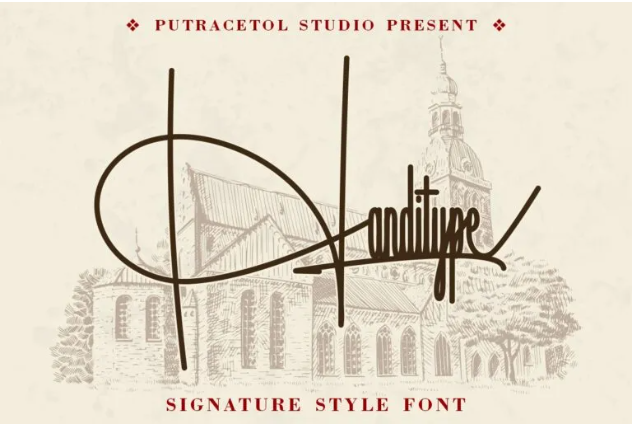
Handitype is solely made to charm readers. This font mimics a commonly understood signature by combining exaggerated capital letters with condensed lowercase.
2. Rhonde
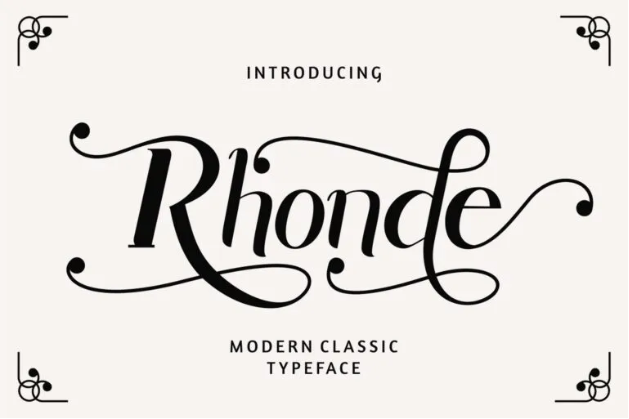
A modern and romantic typeface like Rhonde can incite lovey-dovey vibes. It’s not even the swashes, the uppercase is already ornamented like that.
3. Marie Clarie
A monoline font like Marie Clarie could be an option when looking for a more balanced typeface. It has a script font style with extravagant loops.
4. Qonitya
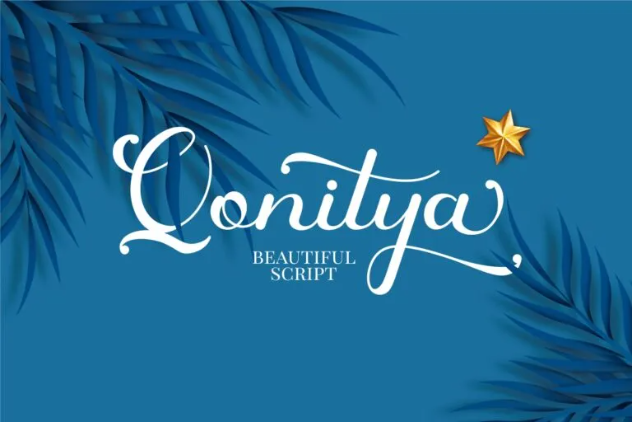
For beautiful hand lettering fonts, Qonitya beautiful script is a no-brainer. The font has wholesome, almost natural typefaces, just like a person wrote it.
5. Mayla
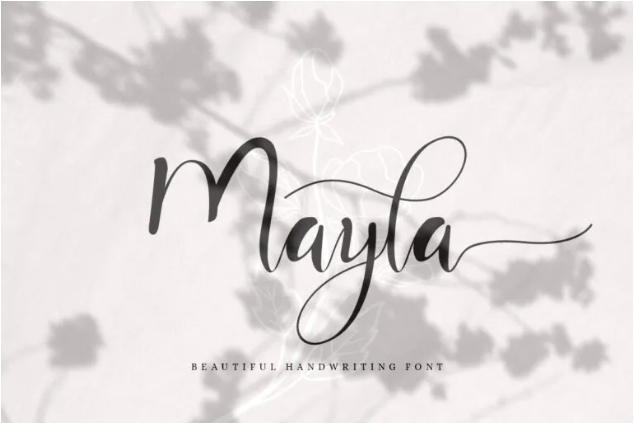
Mayla offers consistent thick and thin strokes. This handwritten script font can captivate readers with its pure appearance.
6. Yuanita
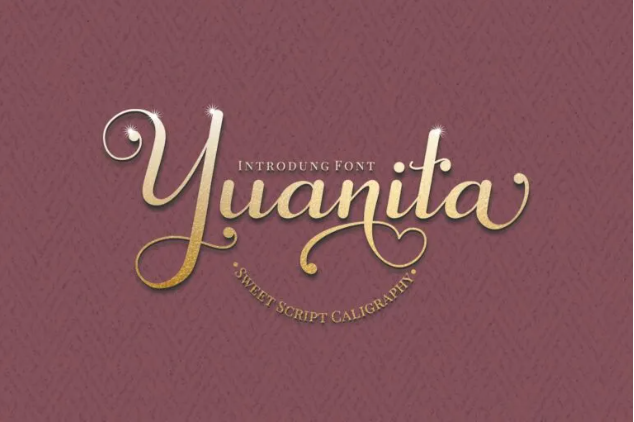
Yuanita hand lettering calligraphy fonts add natural aesthetics with its inconsistencies. The font has unconventional shapes and is slightly uneven at the bottom.
.7. The Doctor
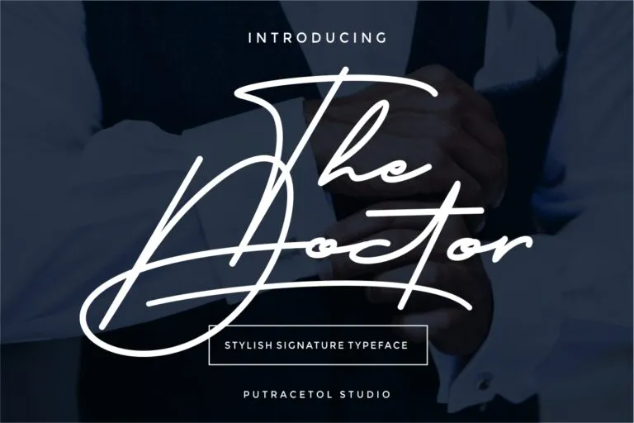
When aiming for authority in your text, The Doctor is the one. It is a signature script with more masculine and manly vibes.
8. Clarinta
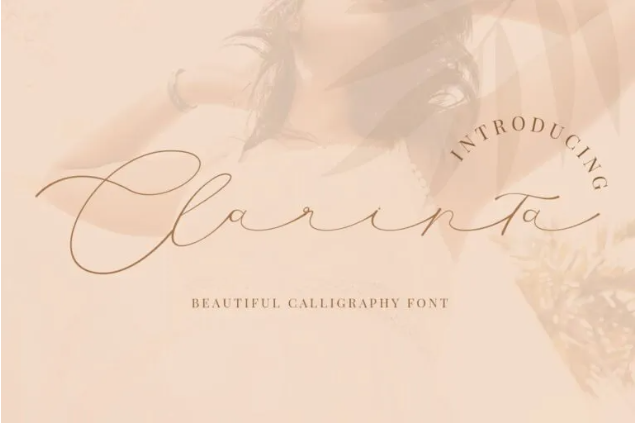
When asserting elegance, Clarinta does not shy away. With its cute and rare typeface, the font serves as the pinnacle of calligraphic font.
9. The Bad Signature
The Bad Signature suggests that it was made with natural handwritten feels. Unlike other signature fonts that focus on flow, this one focuses on readability.
10. Paperlight Script
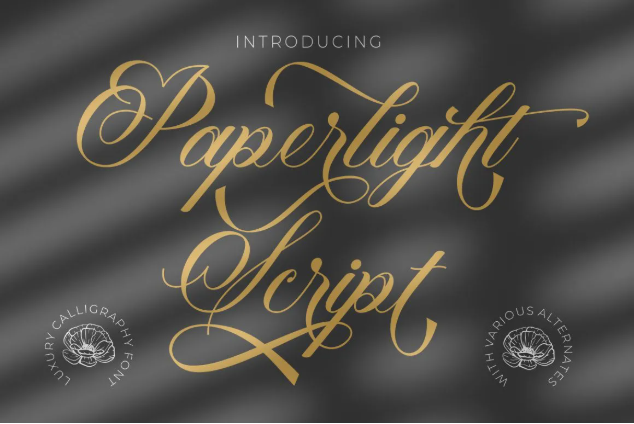
Paperlight Script has become a staple for a luxurious font. When using this font, your invitation will indicate a fancy party.
11. Mellania Script
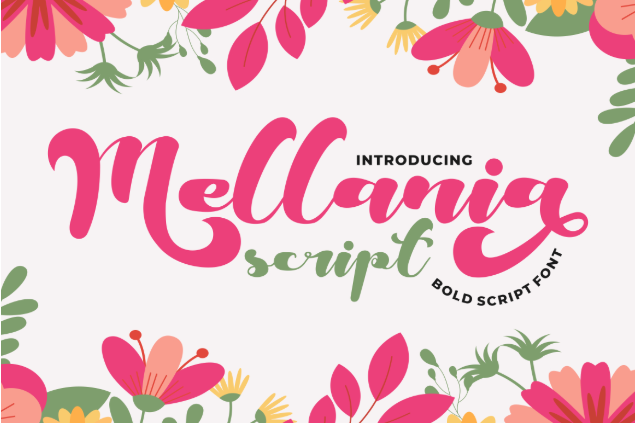
Here’s a hand lettering font with bold strokes. With its boldness, Mellania Script exudes more young and fun vibes.
12. Glamorous Carpet
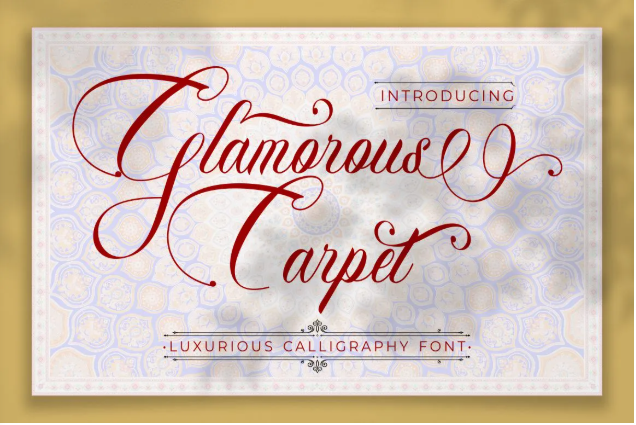
As the name suggests, Glamorous Carpet is made for glamour and luxury themes. The font utilizes the elegance of ribbon-like strokes and loopy details.
13. Keshia
While still intricate and elegant, Keshia also has bubbly and fun characteristics. You can tell that each letter is made with joy, creating a lively atmosphere.
14. Marriage Saga
While other fonts have their distinct elegance, Marriage Saga is made for wedding-related projects. It focuses on subtle flair and great readability.
15. Graciola
In the script category, Graciola combines it with display style. That way, you have more pronounced letters and quirky swashes.
16. Faldith
Among our hand lettering fonts, Faldith embraces the modern style the most. Its elegant script utilizes brush-like strokes and clean cuts.
17. Craft String
Craft String excels in making your invitation and branding look witty. Rather than luxury script, this font aims for a more casual manner.
18. Binlay
Binlay is a script font with more adventurous vibes. The font has pronounced brush characteristics with an exceptional way of swashing.
19. Our Infinity Love
A monoline wedding font Our Infinity Love made your calligraphic invitation more fun. This font opts for carefree strokes that deviate from the norm.
20. Twilight Blossom
When looking for a fun font, Twilight Blossom should be one of them. This font has a calligraphy style with beautiful and bouncy strokes.
21. Happiness Couple
Among other script fonts, Happiness Couple has a distinct stroke, it always ends upward. That alone should interest a niche among romantic designers.
22. Dream Flourish